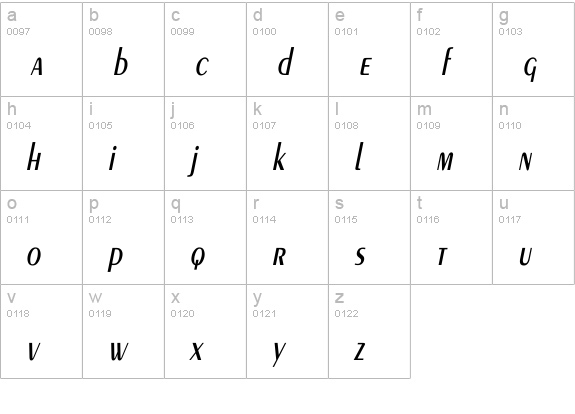
Exotic-Demi Cn Italic Font Details
Exotic-Demi Cn Italic is a sub-bold, structured, italic variant in the Exotic typeface family \xE2\x80\x94 well suited to sub-headlines and emphasised passages.
The Exotic-Demi Cn Italic font is a stunning and unique typeface that exudes elegance and sophistication. Its delicate curves and stylish slant make it perfect for adding a touch of luxury to any design project. The italicized style adds a sense of flair and drama, making it ideal for creating eye-catching headings and titles. This font is versatile and can be used for a variety of purposes, from branding and packaging to invitations and posters. Best of all, the Exotic-Demi Cn Italic font is available for free download at FontsMarket.com. This means you can easily access this exquisite typeface and incorporate it into your designs without any cost. Don't miss out on the opportunity to enhance your projects with this beautiful and elegant font. Download the Exotic-Demi Cn Italic font today and elevate your designs to the next level.